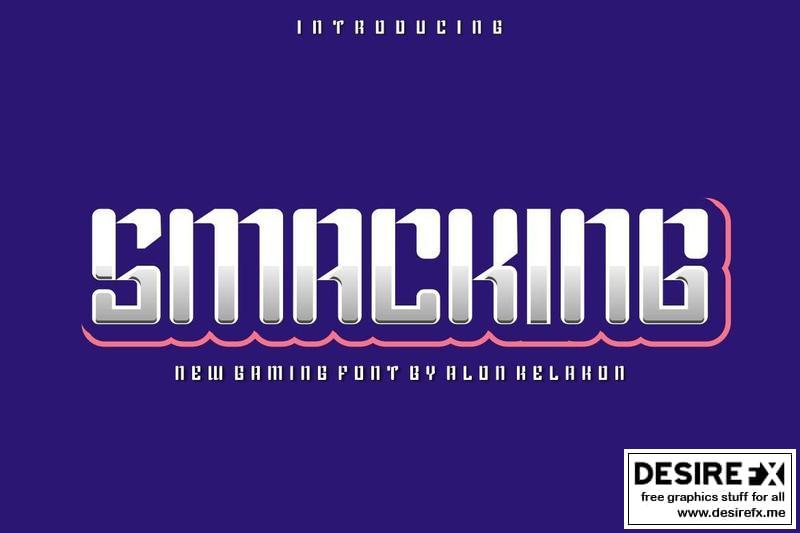
Smacking NTJ3TWA
Smacking Font is unique . Ready to use for your design like labeling, clothing, movie sceen, poster, movie title, gigs, album covers, logos, and much more.